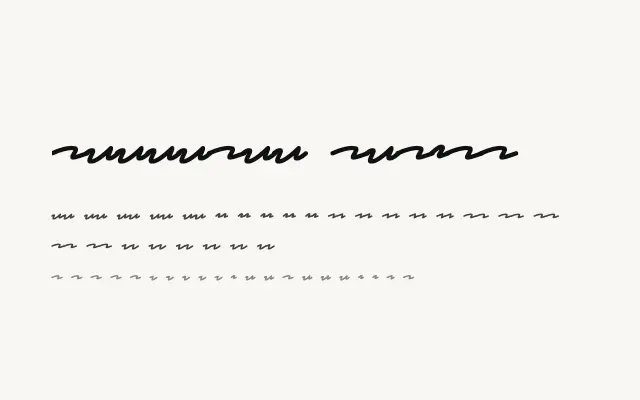
Redacted Script
A novelty script typeface that renders text as opaque scribbled bars, designed purely as a visual placeholder.
Redacted Script serves a very specific purpose: simulating handwritten content without revealing actual text, making it useful for mockups, wireframes, and privacy-conscious design presentations. The Light, Regular, and Bold weights give designers control over the visual density of the redacted areas. Beyond its functional niche, it has a certain deadpan humour as a display element.
Redacted Script mimics handwritten text but renders all letterforms as solid black bars, designed specifically as a placeholder or redaction tool. The three weights vary the stroke thickness while maintaining complete illegibility.